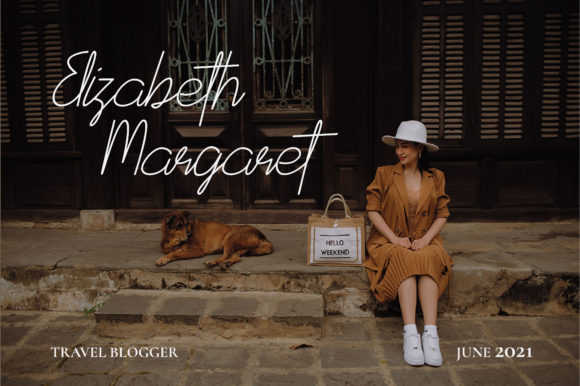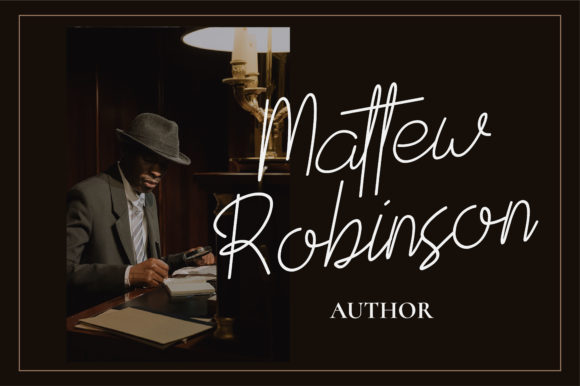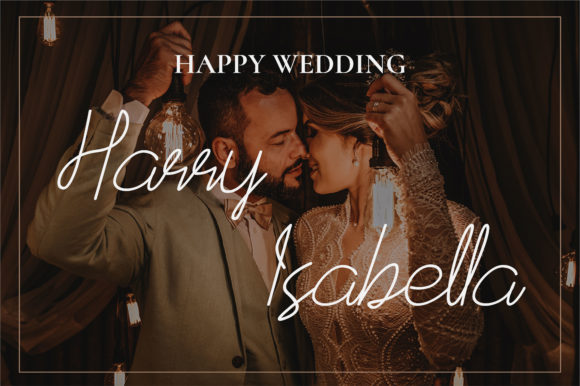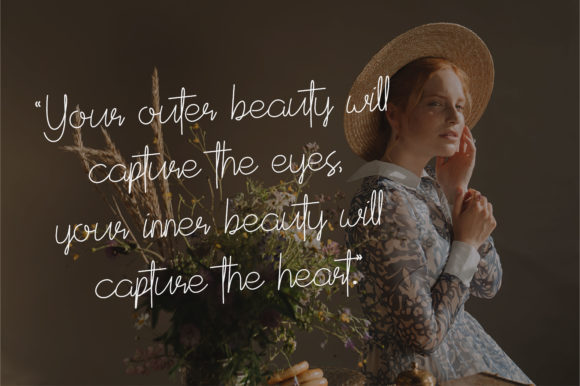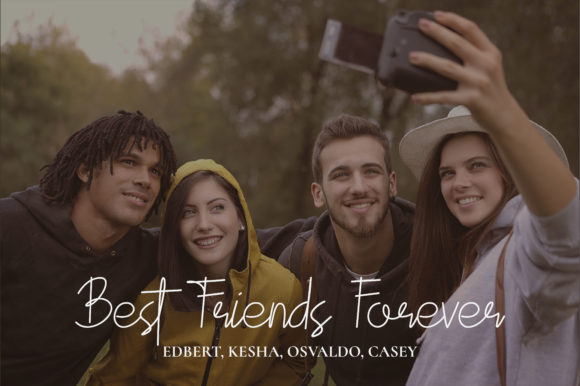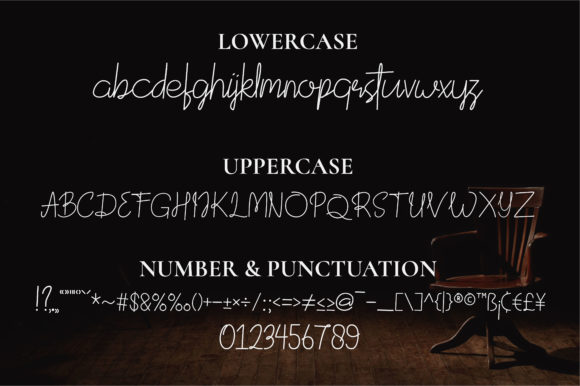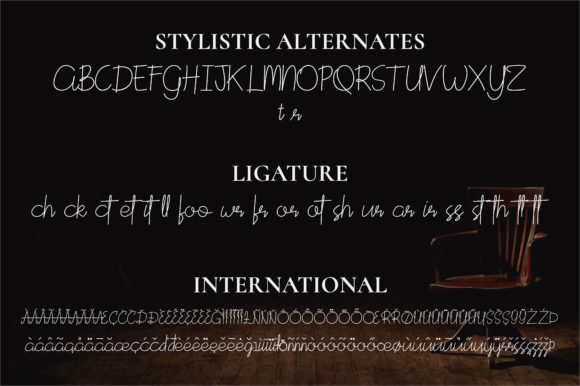
Devitaria Script Font
About Devitaria Script Font
Devitaria Script is a stylish and delicate script font. It has a clean, thin and smooth vibe and it will be a hit for any design that you want to add it to.